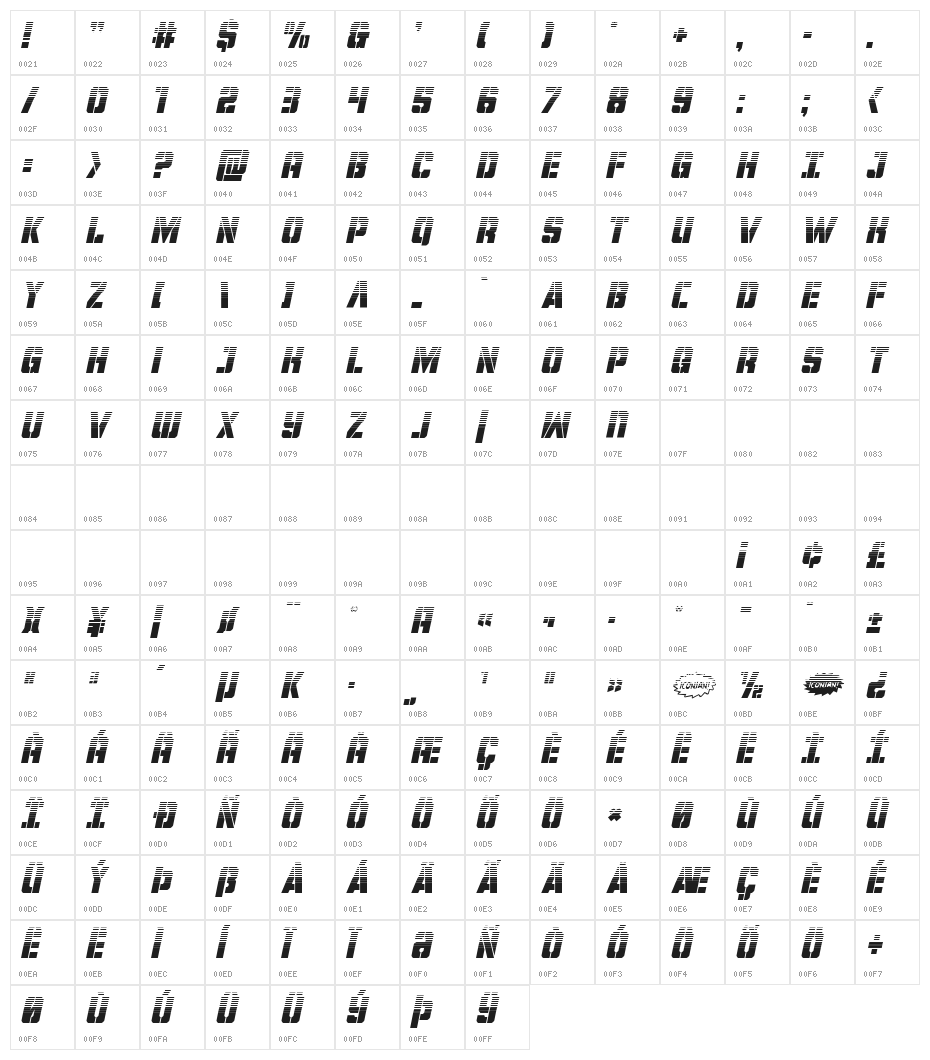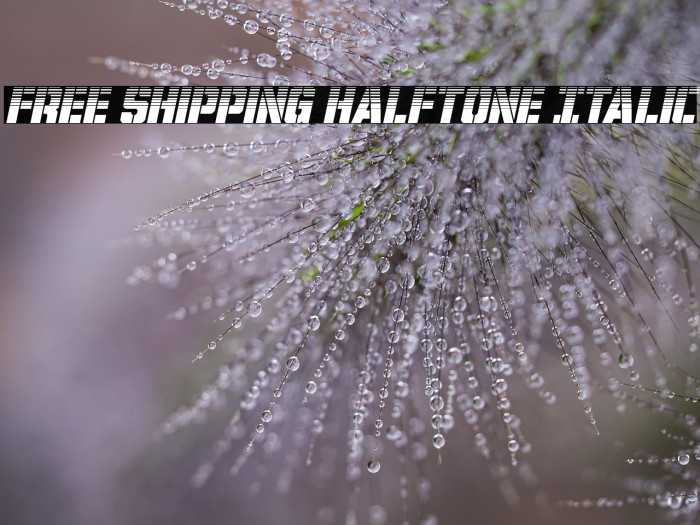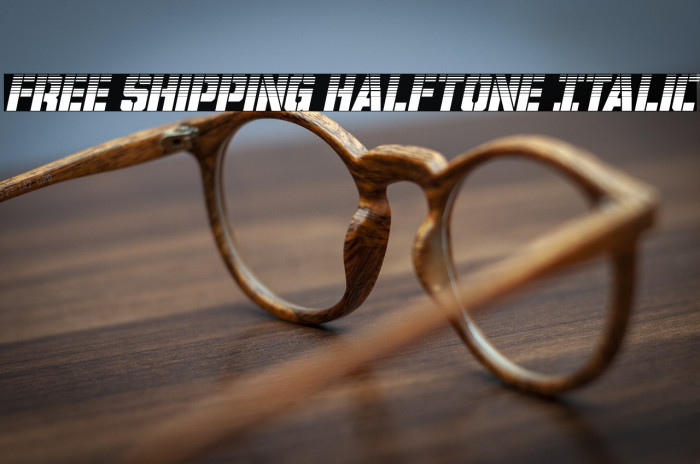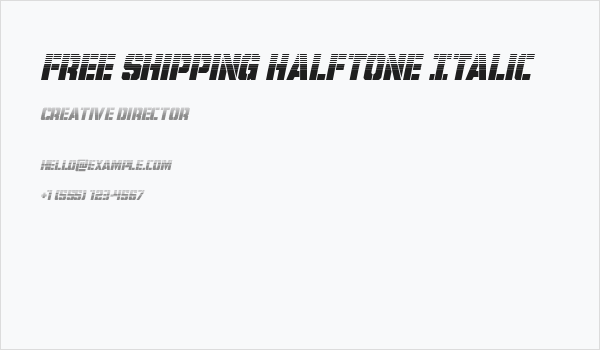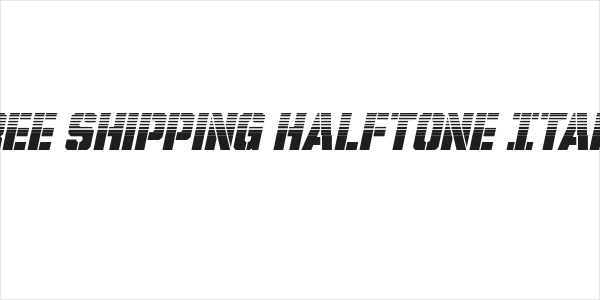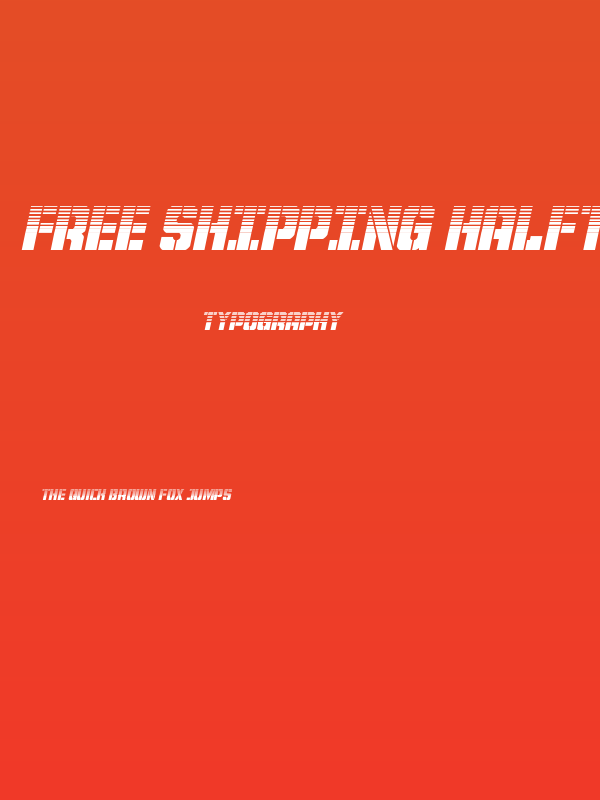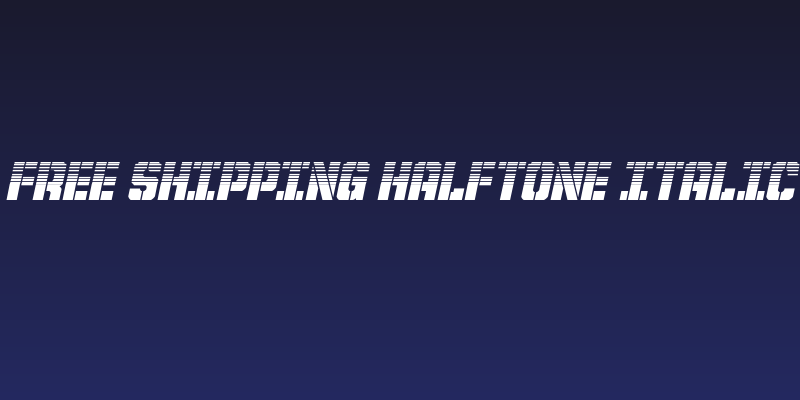
Free Shipping Halftone Italic Font
Free Shipping Halftone Italic Description
This font features a bold and dynamic design with a halftone effect that gives it a unique, textured appearance. The characters are italicized, adding a sense of motion and energy. The uppercase and lowercase letters, as well as numbers and special characters, are all designed with a consistent style that emphasizes boldness and modernity. The halftone pattern creates a visual rhythm, making it ideal for eye-catching designs. The font's strong presence and distinctive style make it suitable for projects that require a contemporary and impactful look.
| Proposed Projects | Ideal for branding, posters, advertisements, and any project needing a striking, modern aesthetic. |